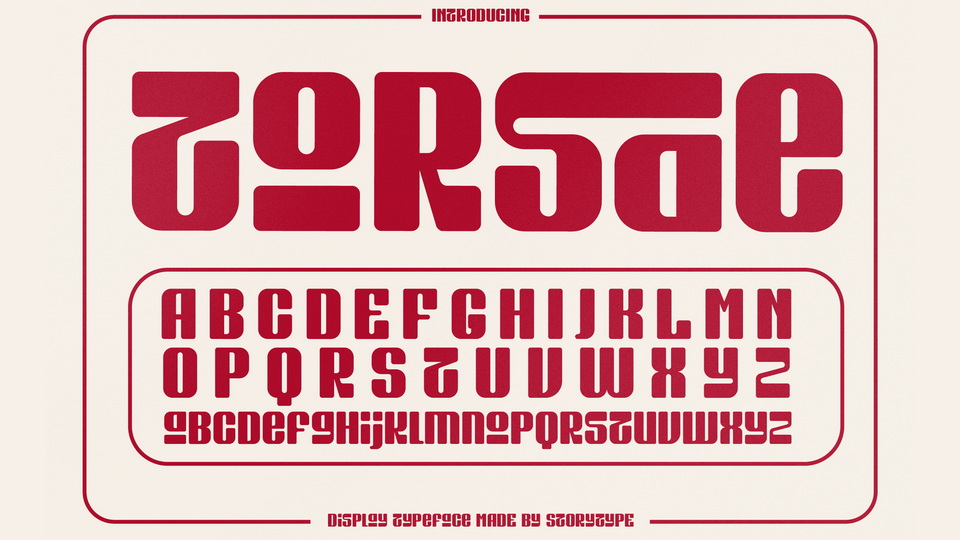
Download Torsae font, a fancy geometric display typeface that has own unique style and modern look. Torsae font is perfect for an bold and creative logo, book or movie title design, fashion brand, magazine, clothes, lettering, quotes, and so much more.